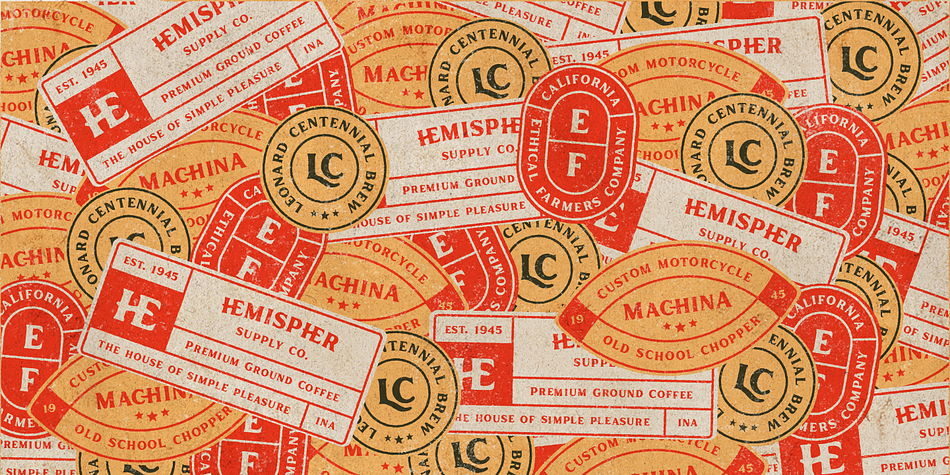
Inlander
Designed by Edi Gunawan, Inlander is a display serif font family. This typeface has eight styles and was published by Edignwn Type.
The Inlander perfectly represents crafted stuff of serif display. This project inspired by beautiful retro label. It comes with solid and outline typefaces. The product include 4 styles (regular, smooth, rough and texture). Some letters contains beautiful ligatures characters and multilingual supported.
The Inlander matches applies in some designs such as the logotype, poster, label, badge, packaging, branding, and more custom design. The features all-caps, numeral, punctuation & symbol, ligatures, multilingual support, PUA encoded.